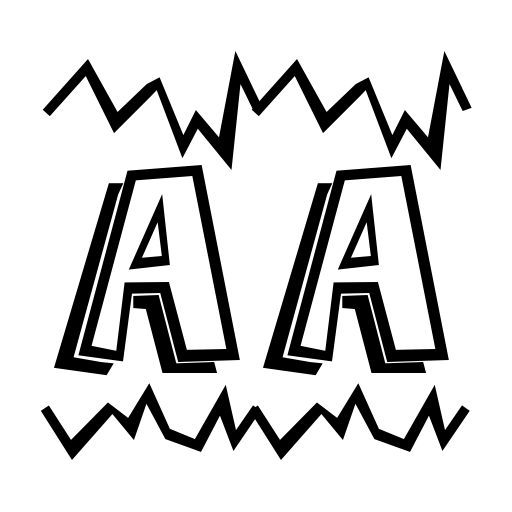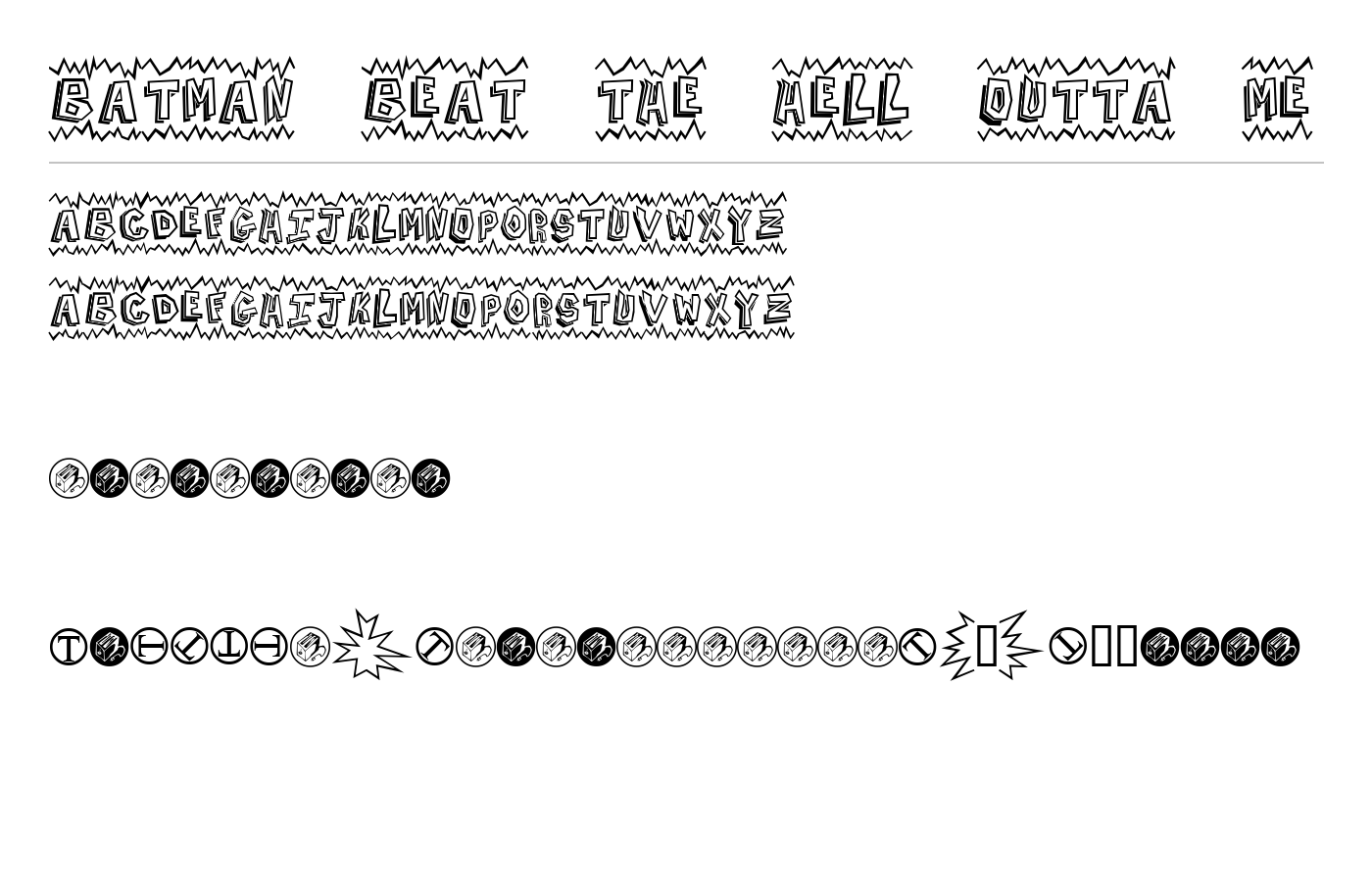
Batman Beat the hell Outta Me is a bold, playful display font with a hand-drawn comic book style that brings energetic, jagged outlines and exaggerated letter shapes to the forefront. Its quirky, uppercase-only letters with dynamic stroke contrast and lively, uneven edges evoke a sense of fun and action, making it perfect for eye-catching headlines, posters, or designs aiming for a retro comic or pop culture vibe. This font works best where a strong, informal, and dramatic personality is needed to grab attention and convey excitement.
Batman Beat the hell Outta Me Font